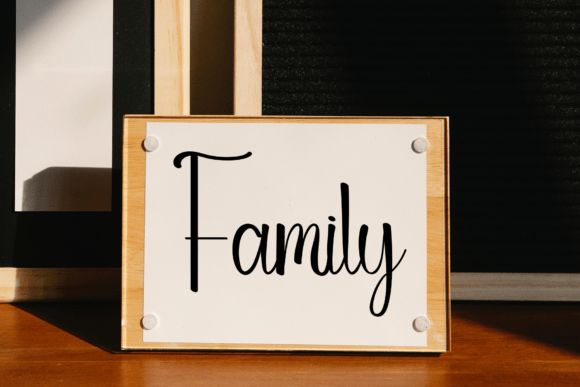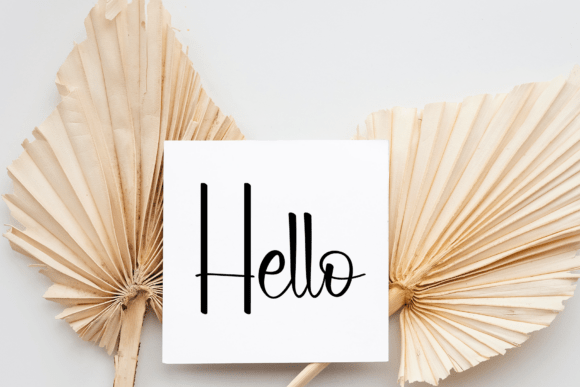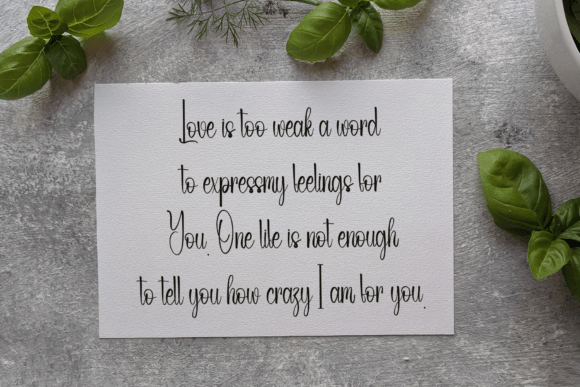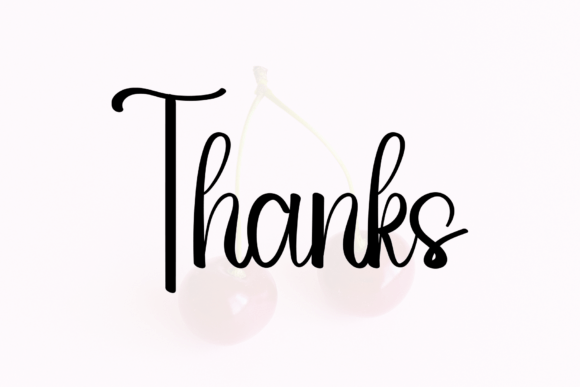
Discover the Charm of Authentic Valentine Font: A Perfect Choice for Your Design Projects
Are you looking for a font that can add a touch of warmth and personality to your design projects? Look no further than the Authentic Valentine Font. This charming handwritten font is filled with a sense of heartfelt perfection, making it an ideal choice for a variety of design applications. In this article, we’ll explore the features and benefits of the Authentic Valentine Font, and how it can elevate your designs to the next level.
The Characteristics of Authentic Valentine Font
The Authentic Valentine Font is a beautifully crafted handwritten font that boasts smooth strokes and organic lines. These characteristics evoke a relaxed atmosphere, perfect for creating designs that are approachable, friendly, and inviting. The font’s natural flow and imperfections give it a unique, human touch that sets it apart from more traditional fonts.
One of the standout features of the Authentic Valentine Font is its versatility. Whether you’re working on a branding project, creating invitations, or designing social media graphics, this font is sure to impress. Its charm and character make it perfect for:
- Branding: Use the Authentic Valentine Font to create a unique and memorable brand identity that sets you apart from the competition.
- Invitations: Add a touch of elegance and sophistication to your invitations, whether it’s for a wedding, birthday, or other special occasion.
- Social Media Graphics: Create eye-catching social media graphics that showcase your brand’s personality and style.
Why Choose Authentic Valentine Font?
So, why choose the Authentic Valentine Font over other fonts? Here are just a few reasons:
- Unique and Memorable: The Authentic Valentine Font is a one-of-a-kind font that will help your designs stand out from the crowd.
- Easy to Read: Despite its handwritten nature, the font is surprisingly easy to read, making it perfect for body text and headlines.
- Highly Versatile: The font can be used for a wide range of design projects, from digital to print.
Tips for Using Authentic Valentine Font
To get the most out of the Authentic Valentine Font, here are a few tips to keep in mind:
- Use it as a Headline Font: The Authentic Valentine Font is perfect for headlines and titles, where its unique character can really shine.
- Pair it with a Simple Font: For body text, pair the Authentic Valentine Font with a simple, sans-serif font to create a nice contrast.
- Experiment with Colors: The font looks great in a variety of colors, so don’t be afraid to experiment and find the perfect hue for your design.
In conclusion, the Authentic Valentine Font is a charming and versatile font that’s perfect for a wide range of design projects. Its smooth strokes, organic lines, and unique character make it a standout choice for designers and crafters looking to add a touch of warmth and personality to their designs. Whether you’re working on a branding project, creating invitations, or designing social media graphics, the Authentic Valentine Font is sure to impress.